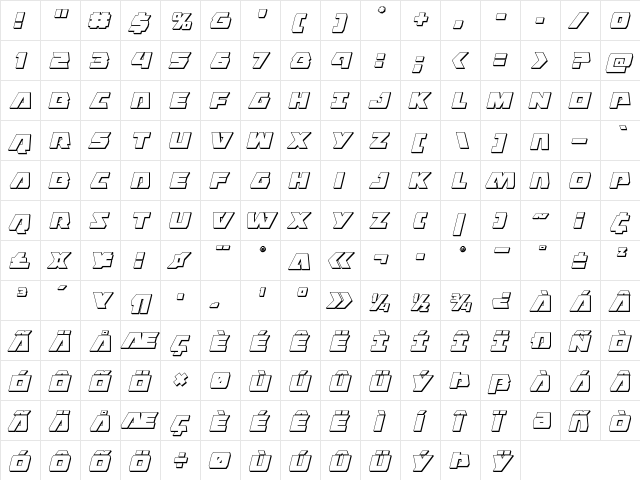
Eagle Strike 3D Italic Italic Font Preview
Eagle Strike 3D Italic Italic
Design Context for Eagle Strike 3D Italic Typeface
Eagle Strike 3D Italic is a composed and adaptable typeface that performs quietly and consistently across a wide range of design contexts. The slanted form adds forward momentum and visual energy.
Pro Tip: Try Eagle Strike 3D Italic for annotation and caption copy alongside an upright companion — the contrast in angle creates a dynamic but ordered typographic system.